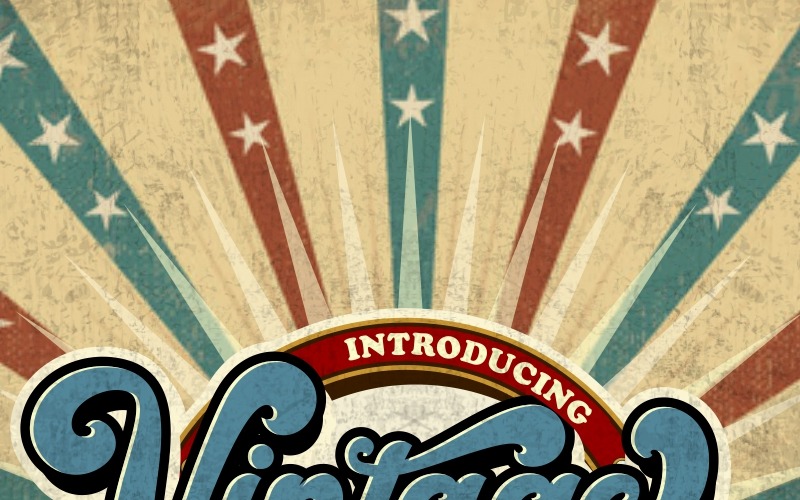
Vintage Queens - Retro Bold Cursive Font
Vintage Queens
Introducing a new vintage bold script called "Vintage Queens ". Inspired from retro typography and lettering in the 70's and 80's combine with bold typography style. With a total of 534 glyphs with 359 alternate, you can make letter combinations for lettering with a lot of options.
Come with open type feature ( a lot of alternates and end swash), its help you to make great lettering.
Vintage Queens best uses for Logotype, heading,cover, poster, logos, quotes, product packaging, header, merchandise, social media & greeting cards and many more.
This font is also support multi language.